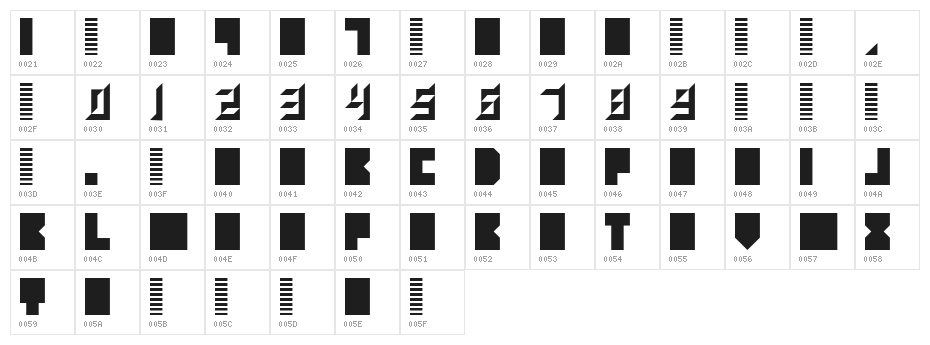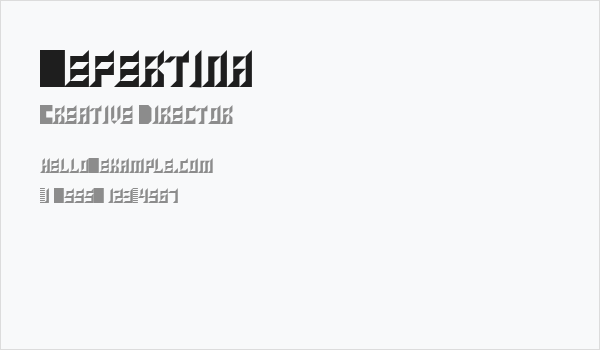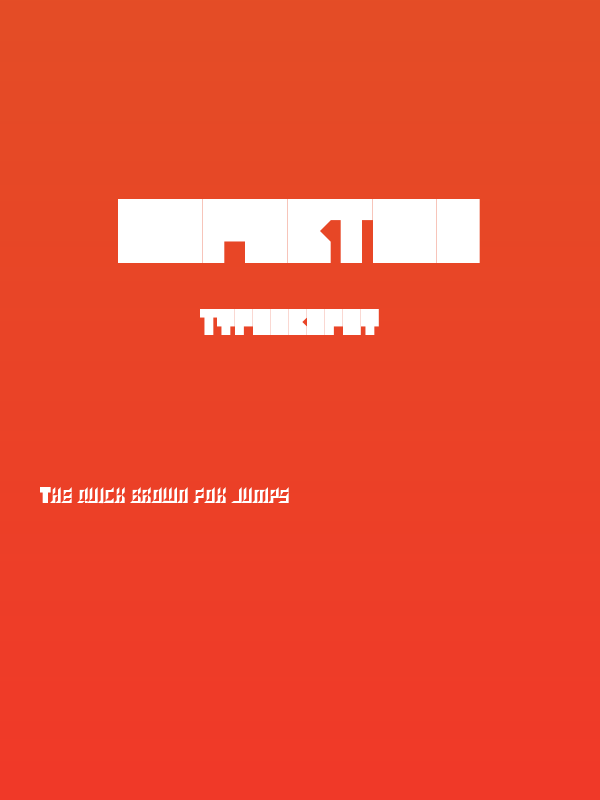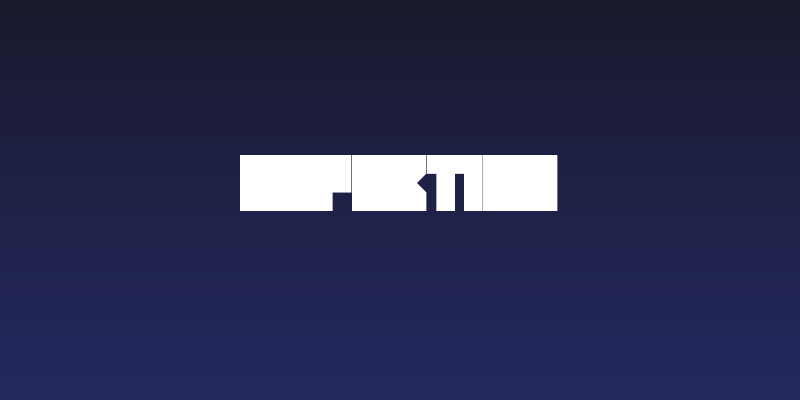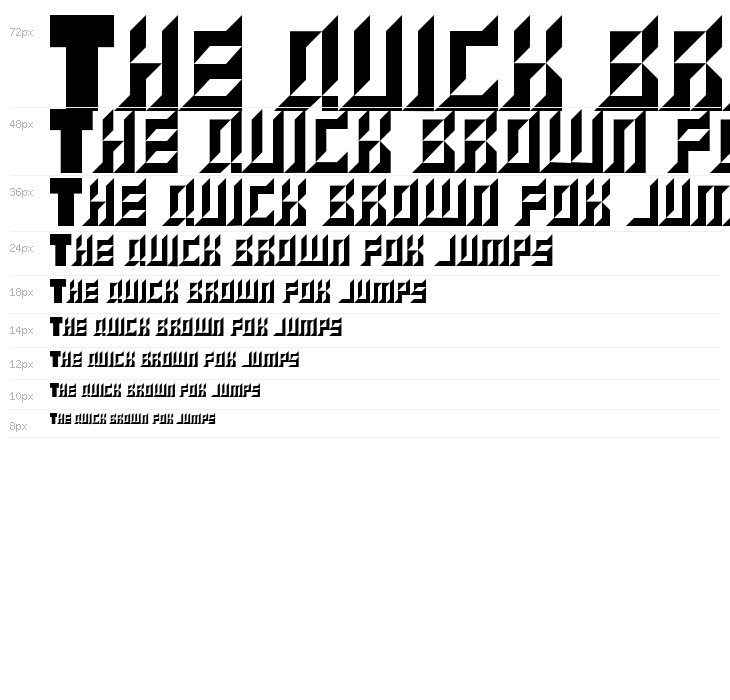
Nefertina Font
Nefertina Description
This font exhibits a bold and geometric design, characterized by sharp angles and a distinct block-like structure. Each character is crafted with a combination of solid and negative spaces, creating a dynamic and visually striking appearance. The uppercase letters are particularly prominent, with a consistent angular motif that runs throughout the set. The numbers and special characters maintain this geometric theme, ensuring a cohesive look across all glyphs. The font's unique style makes it stand out, offering a modern and edgy aesthetic that is both eye-catching and memorable.